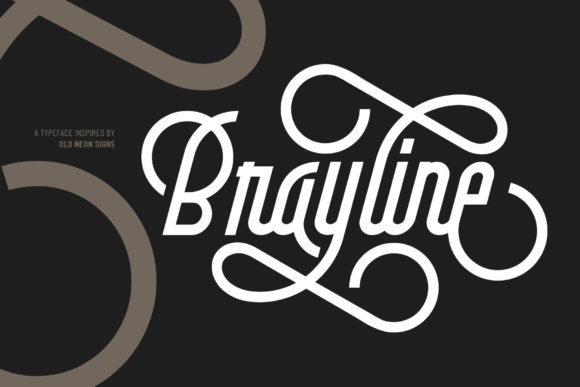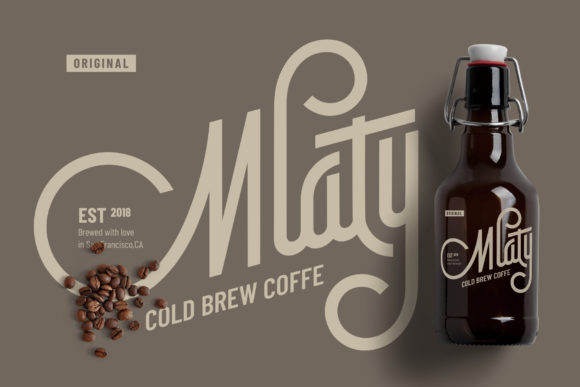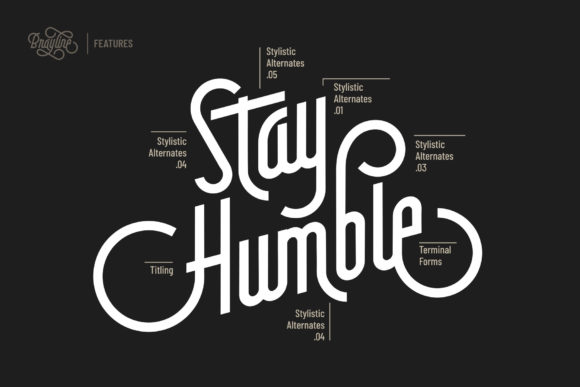
About Brayline Font
Brayline is a stunning vintage-inspired handwritten font that exudes a cool and nostalgic vibe. With its unique style and attention to detail, this font is perfect for projects that require a touch of old-world charm.
The vintage aesthetic of Brayline makes it an ideal choice for creating designs that evoke a sense of nostalgia and authenticity. Whether you’re working on branding materials, logos, signage, or any other creative project, this font will add a beautiful and refreshing look to your designs.
One of the standout features of Brayline is its PUA encoding, which allows you to easily access a wide range of glyphs and swashes. This means you can customize your designs and add decorative elements to create a unique and personalized look. The versatility provided by the PUA encoding feature gives you the freedom to experiment and create designs that truly stand out.
Brayline’s handmade appearance and vintage styling make it a versatile font that works well in various design contexts. It can be used for everything from product packaging and labels to social media graphics and invitations. Its authentic and refreshing look adds character and personality to your designs, setting them apart from the crowd.
When using Brayline, you can expect a well-crafted and highly detailed font that brings a touch of nostalgia and authenticity to your projects. The careful attention to each letterform ensures a harmonious and visually pleasing result. The vintage-inspired design elements, such as decorative swashes and alternate glyphs, add an extra level of sophistication and charm to your designs.
In summary, Brayline is a cool and vintage-styled handwritten font that brings a refreshing and nostalgic look to your designs. Its PUA encoding allows easy access to a variety of glyphs and swashes, giving you creative freedom to customize and personalize your designs. Whether you’re working on branding, packaging, or any other creative project, Brayline will add a touch of old-world charm and make your designs truly stand out.